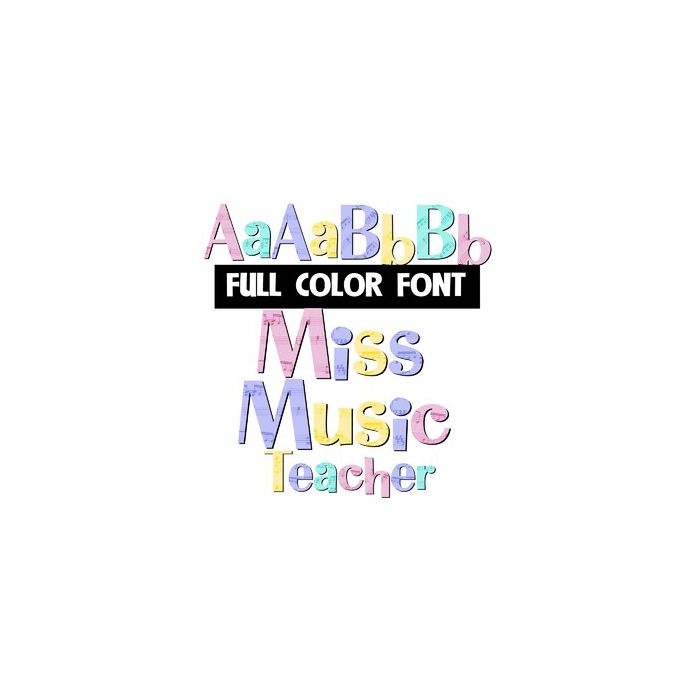
This full-color font features pastel musical notes on pastel lettering. There is an alt version color of each letter you can access through your system or Silhouette's glyph map.